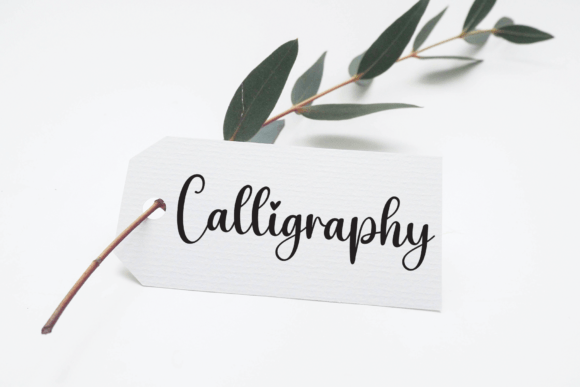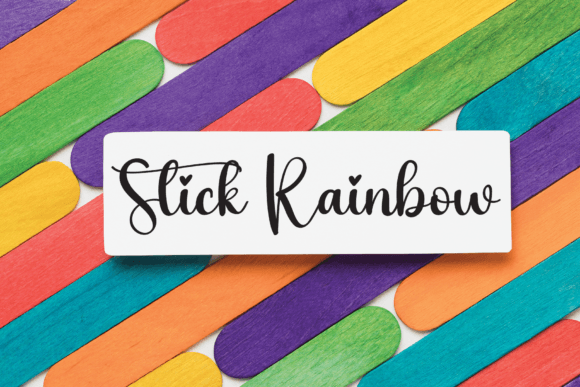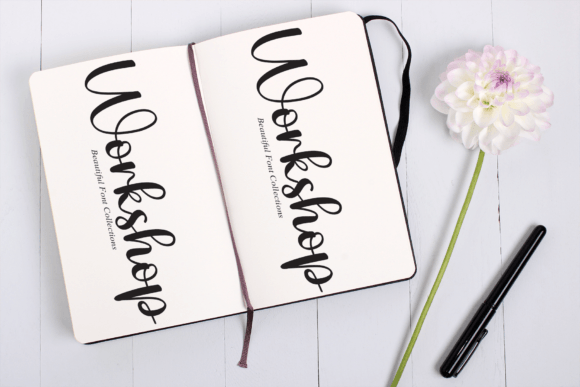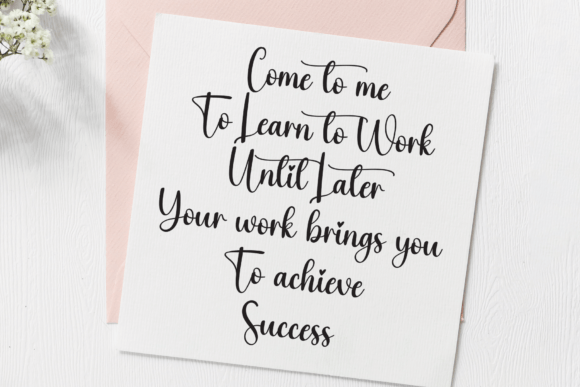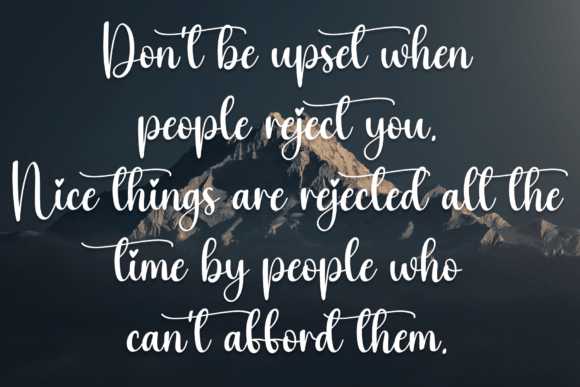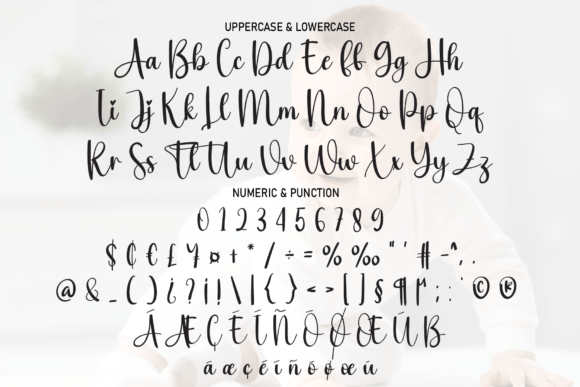
The Birth of a New Favorite Font
Have you ever stared at a blank sheet of paper, waiting for the perfect font to appear and spark your creativity? That’s exactly what happened to us when we stumbled upon the Baby Chubby Font. Its playful, handwritten style was love at first sight, and we knew we had to share it with the world.
The Baby Chubby Font is a beautiful, modern script that’s perfect for adding a personal touch to any design project. Whether you’re creating wall displays, wedding invitations, or social media post logos, this font is sure to bring a smile to your face and a touch of whimsy to your designs.
As designers, we’re always on the lookout for unique and versatile fonts that can elevate our work and make it stand out. The Baby Chubby Font is a valuable addition to any design arsenal, and we can’t wait to see the amazing things you’ll create with it.
Baby Chubby Font Key Features
- Unique Characteristics: The font features rounded and chubby letterforms, making it perfect for creating a playful and childlike atmosphere in designs.
Designer Review: Baby Chubby Font
Overall, I found the Baby Chubby Font to be a charming addition to any design project. It’s perfect for creating a whimsical and playful atmosphere. ✨ The rounded edges and soft curves of the font give it a friendly and approachable feel that’s ideal for designs targeting families or young audiences.
The Baby Chubby Font is also highly versatile, with a wide range of applications, from greeting cards and party invitations to children’s books and educational materials. ✨ It’s easy to use and pair with other fonts, making it a great choice for designers who want to add a touch of personality to their projects.
- ⚠️ Limited use in formal or professional settings due to its playful nature
- ⚠️ May not be suitable for designs requiring a lot of text due to its relatively small font size
- ⚠️ Some characters may be more difficult to read at smaller sizes
Overall, I would recommend the Baby Chubby Font to designers looking to add a touch of whimsy to their projects. While it may have some limitations, its unique charm and versatility make it a great choice for the right application.
Use the Baby Chubby Font for creating playful and whimsical designs.
Pair it with bright and pastel colors for a cohesive look.
Experiment with different font sizes and styles to add visual interest.
Baby and kids-related designs, such as invitations and party decorations.
Food and beverage branding, especially for desserts and children’s snacks.
Whimsical and playful marketing campaigns.
Alternatives to Baby Chubby Font
Great Vibes is a beautiful, modern script font that’s perfect for adding a touch of elegance and sophistication to your designs. It’s ideal for use in titles, headings, and other display text where a flowing, handwritten feel is desired. Great Vibes is a great alternative to Baby Chubby Font when you need a more refined and polished look.
Comparison to Baby Chubby Font: Great Vibes is more formal and less playful than Baby Chubby Font, making it suitable for a wider range of design applications.
Alex Brush is a elegant, hand-painted script font that’s perfect for adding a touch of whimsy and personality to your designs. It’s ideal for use in titles, headings, and other display text where a unique, handwritten feel is desired. Alex Brush is a great alternative to Baby Chubby Font when you need a more artistic and expressive look.